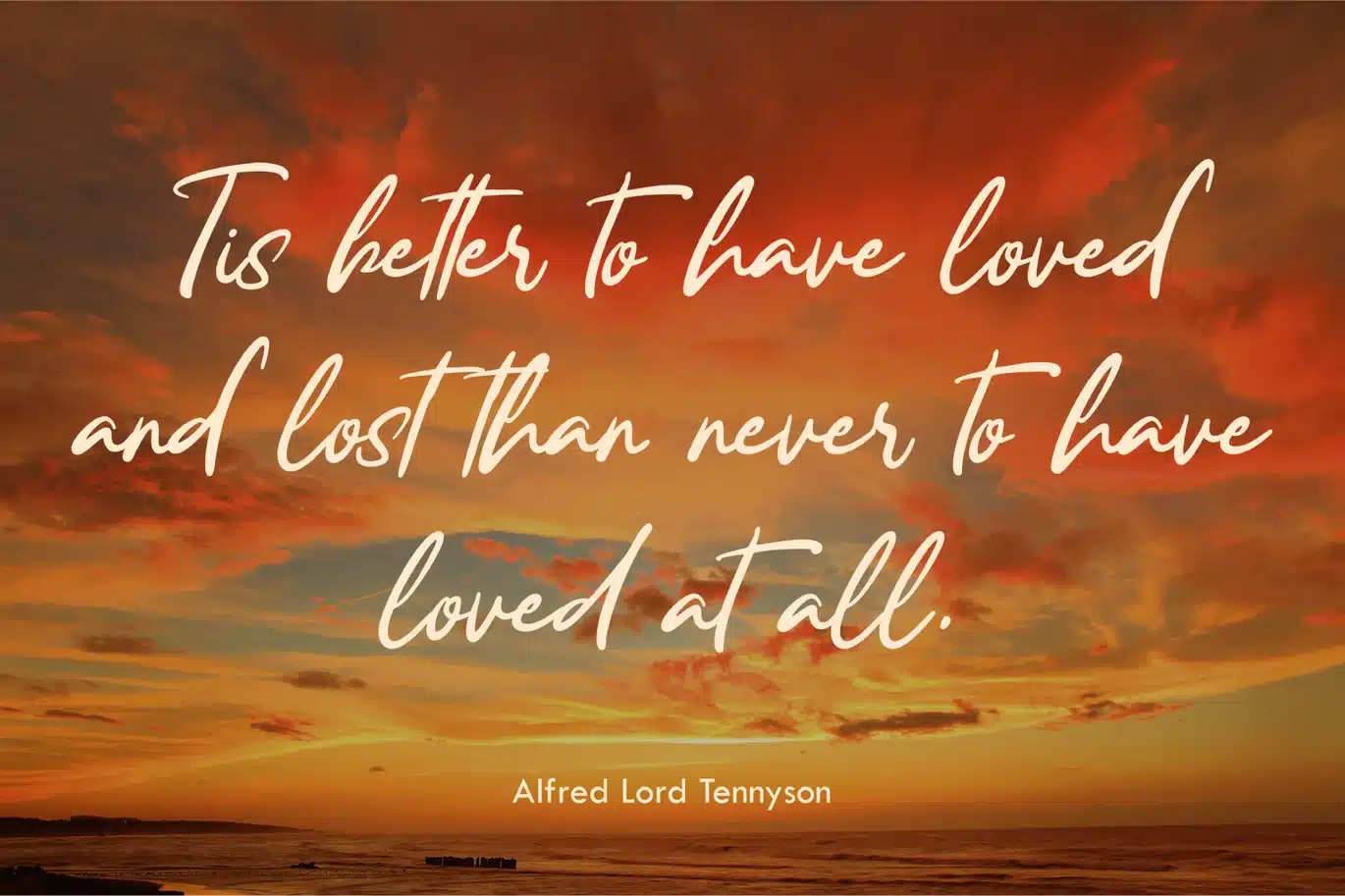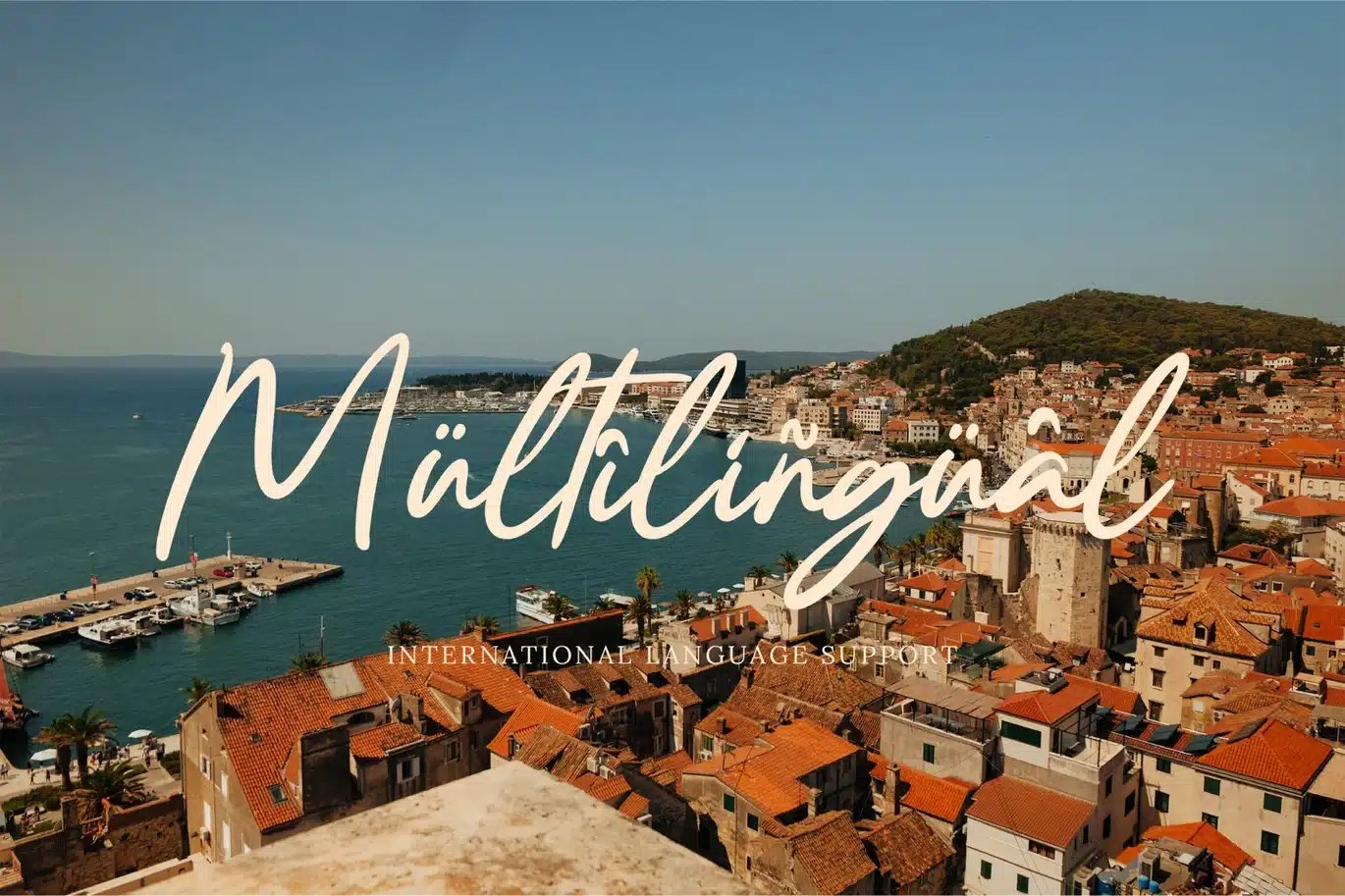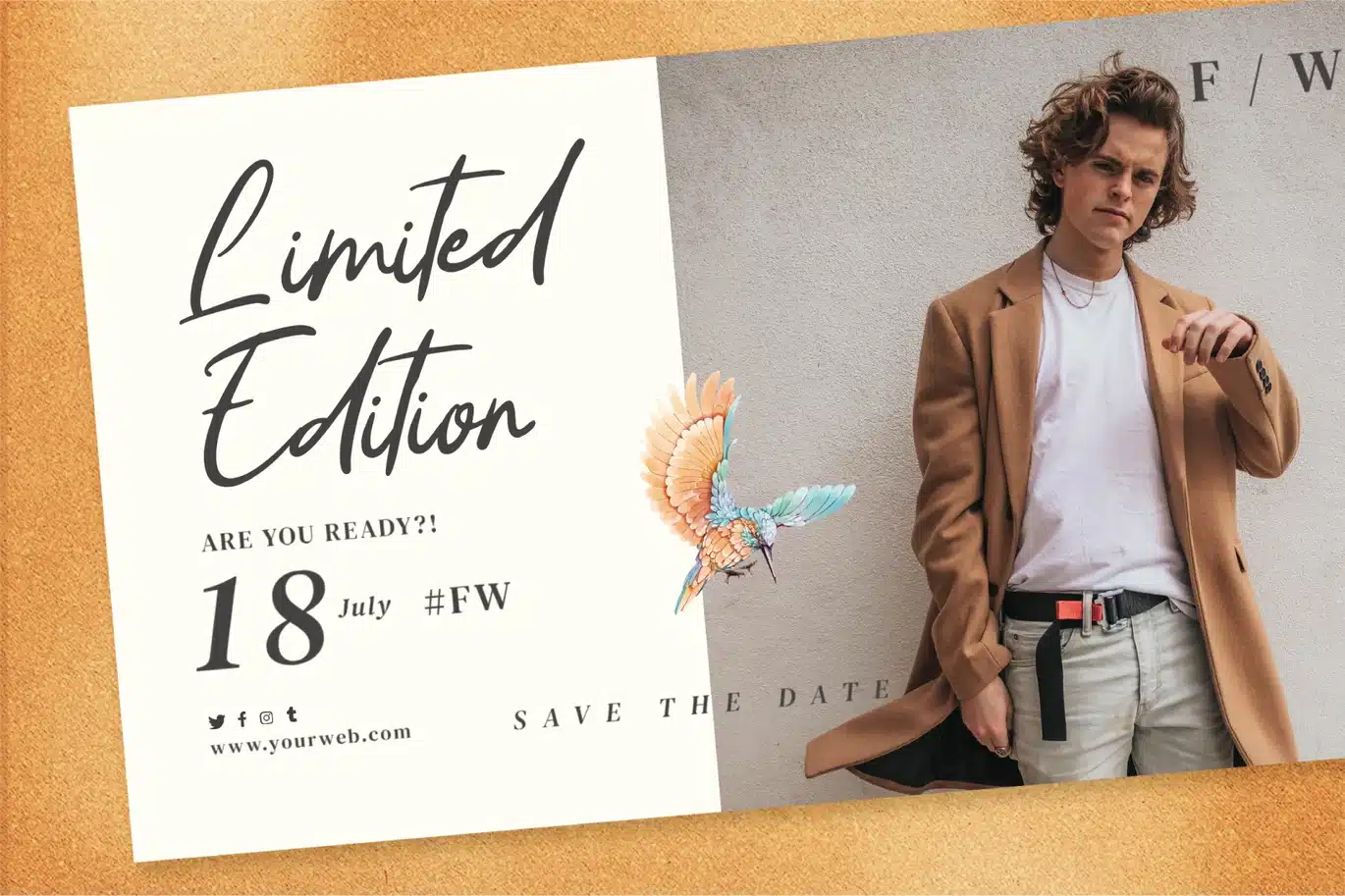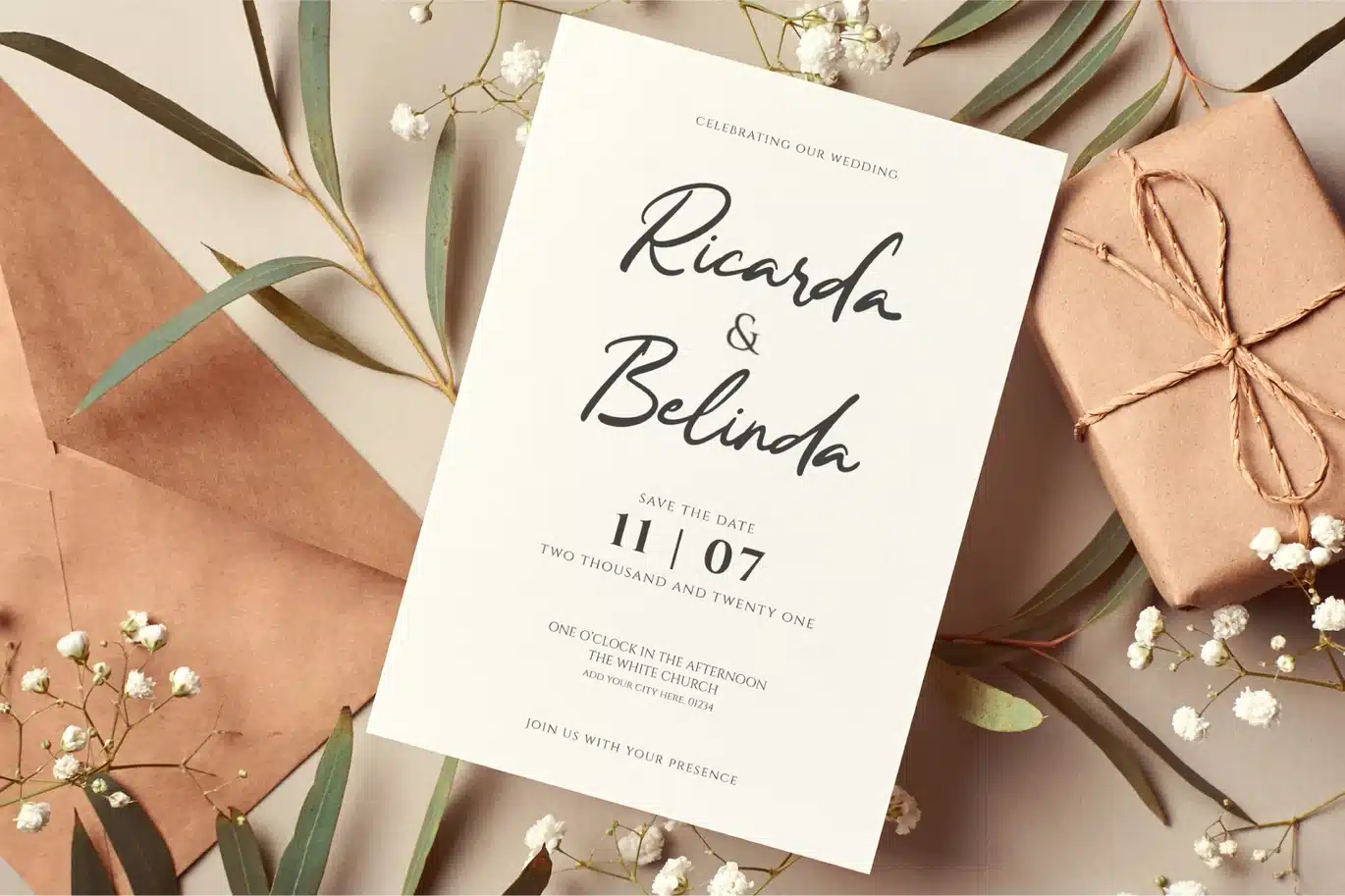
Ranchel Script Font
Introducing our font “Ranchel” – An elegant and natural handwritten script.
Ranchel is perfect for websites, branding projects, logo, wedding designs, social media posts, advertisements, product packaging, product designs, label, photography, watermark and anything you want!
- Uppercase & lowercase
- Punctuation & symbol
- Multilingual characters